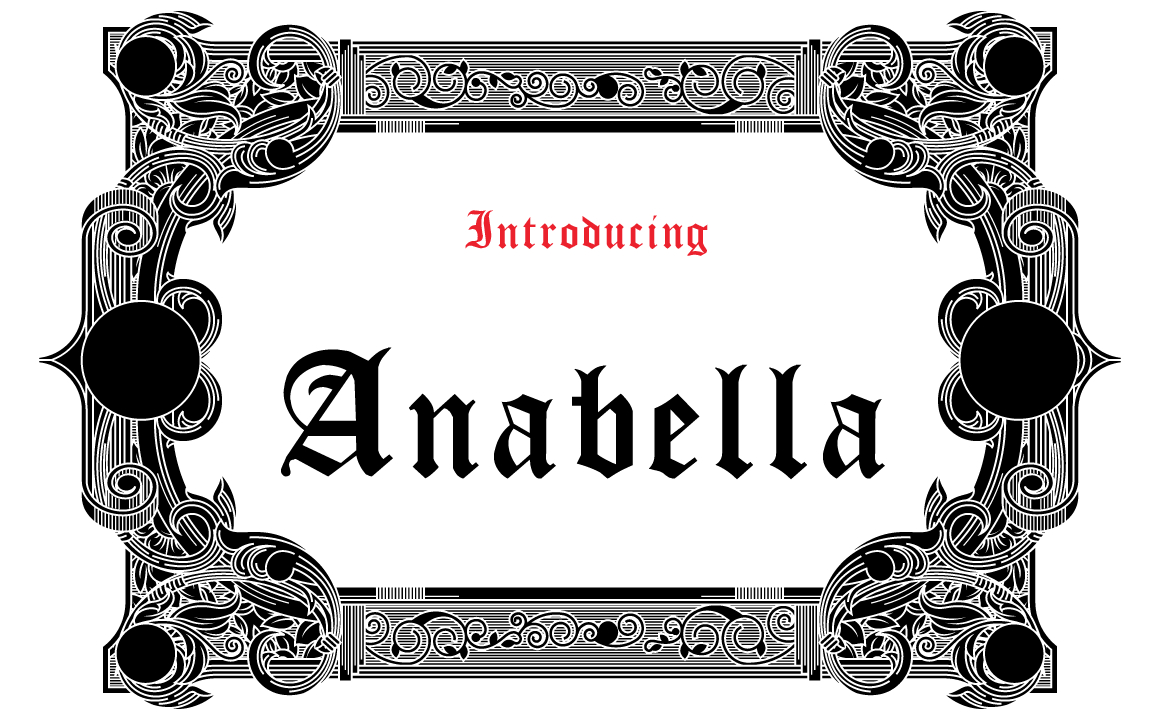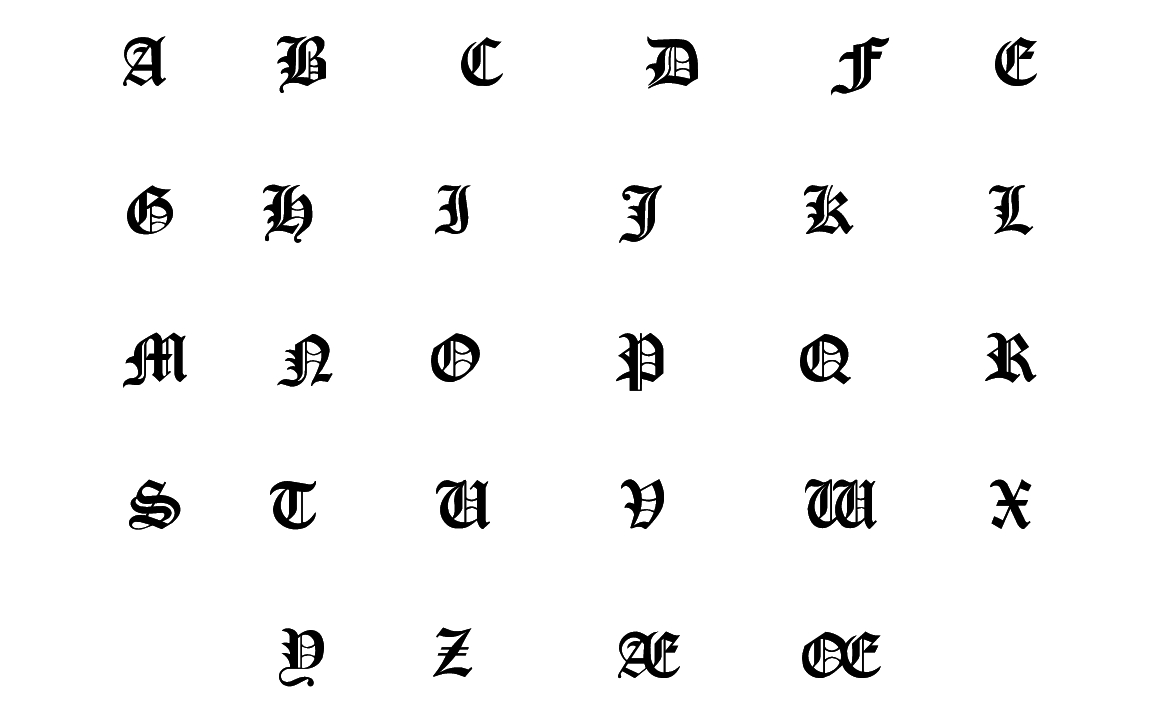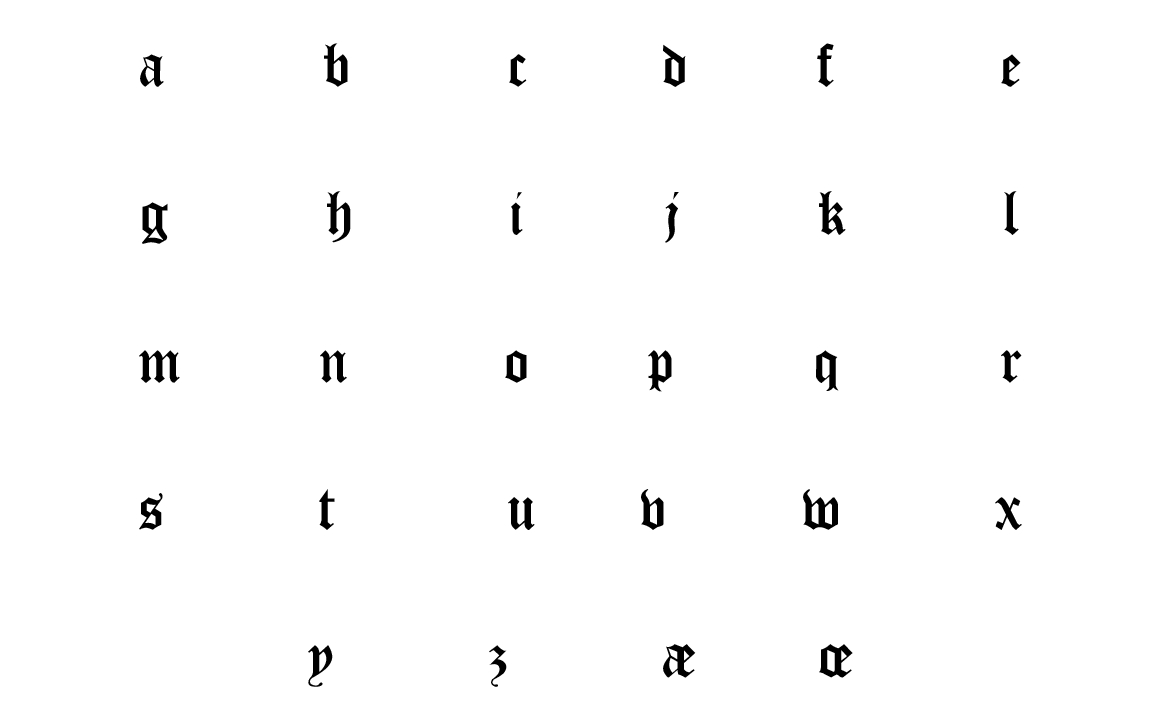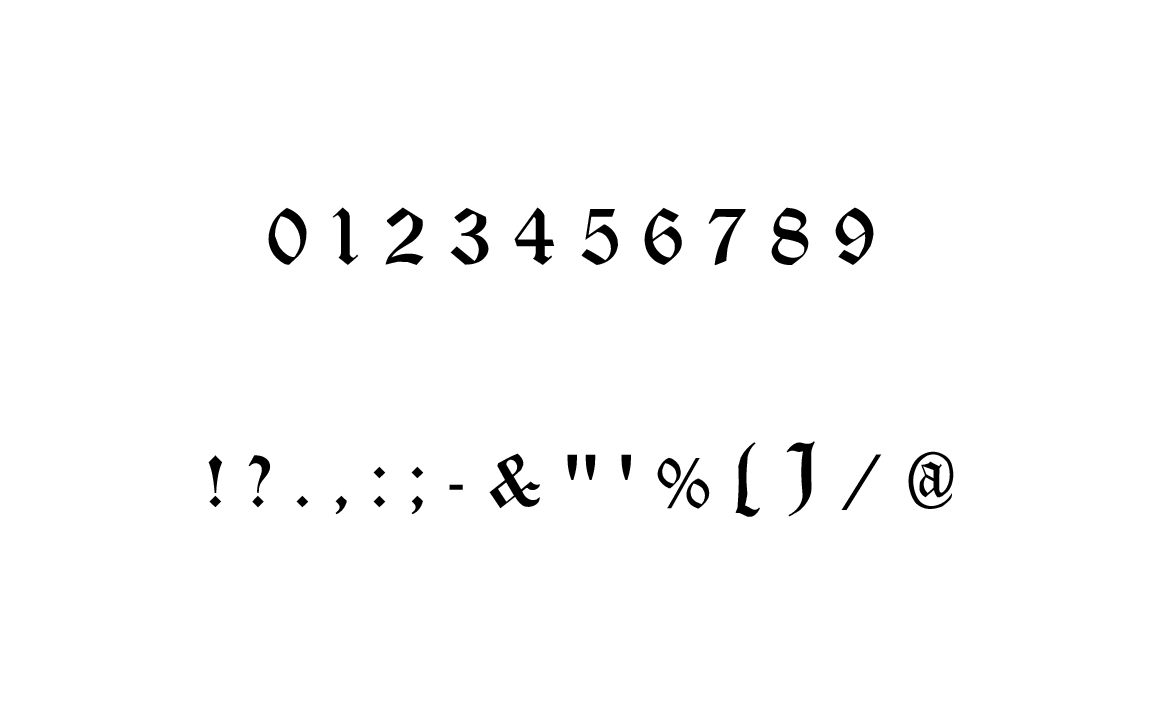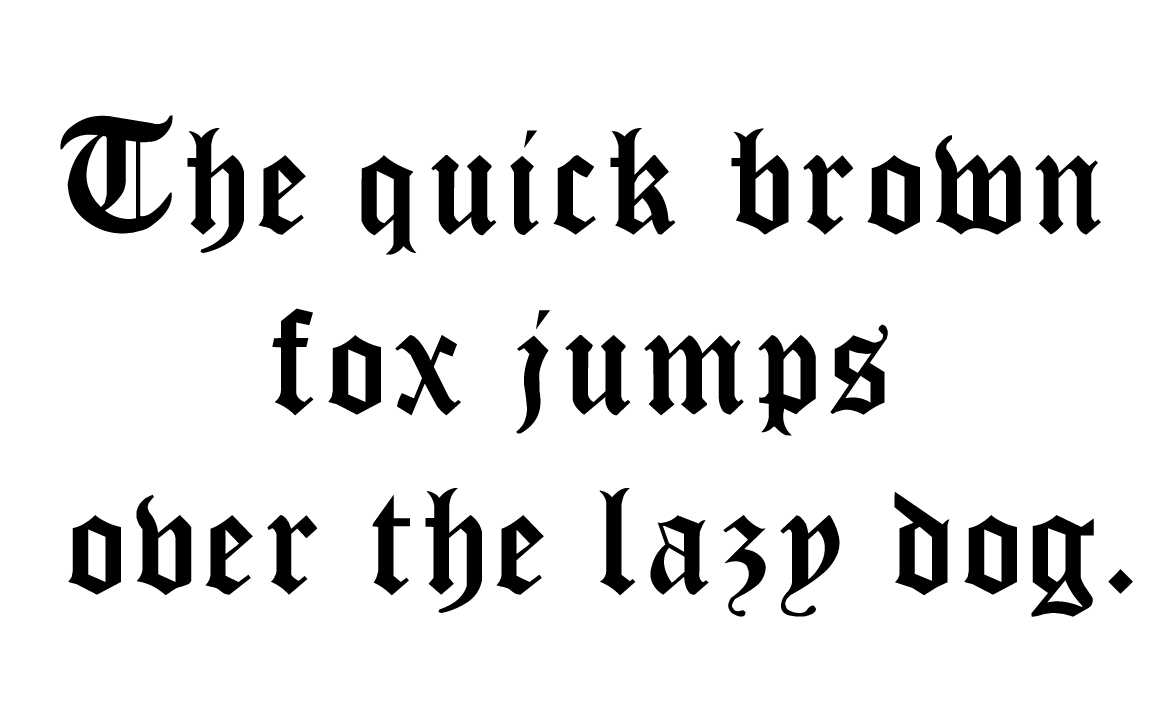
Anabella Font
About Anabella Font
Anabella is a beautiful blackletter Gothic font, great for print or branding projects. This font can add tons of nuance and style to your work, and excels in displays and logotype.